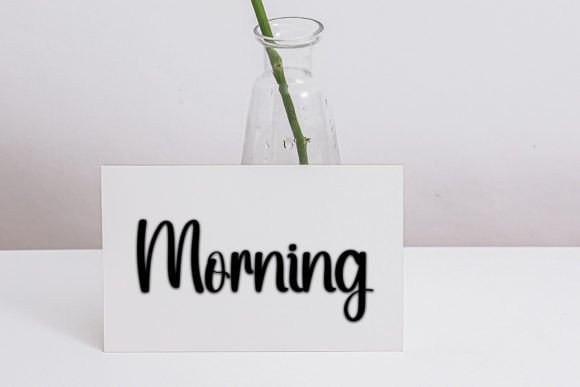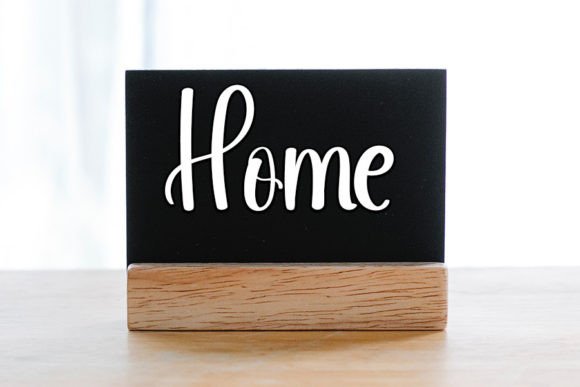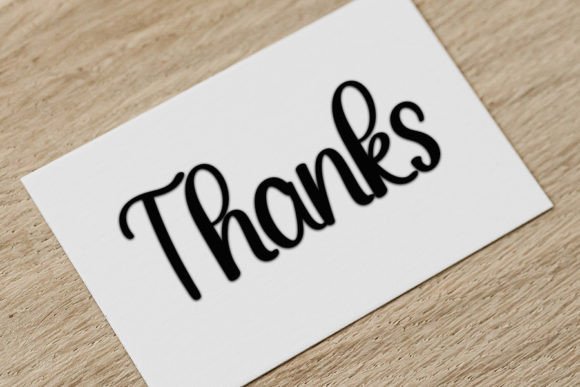
About Hello Bady Font
“Hello Baby is a neat and beautiful handwritten font distinguished by its elegant touch, making it perfect for a variety of creative projects. Its distinct and timeless style invites you to fall in love with its unique charm and use it to create spectacular designs.
The beauty of Hello Baby lies in its neat and well-crafted handwritten aesthetic. The font’s elegance is evident in its clean lines and distinctive style, offering a versatile option for a range of design applications. Whether you’re working on branding, stationery, social media posts, or other projects, Hello Baby adds a touch of sophistication to your creations.
The distinct and timeless style of Hello Baby ensures that it remains relevant and visually appealing over time. This makes it a valuable asset for projects where you want a font that stands out while maintaining a classic and enduring quality.
Consider incorporating Hello Baby into your favorite projects to infuse them with a sense of elegance and individuality. Whether used for logos, branding materials, invitations, or digital designs, Hello Baby’s distinct and timeless style allows it to shine in various creative contexts.
In summary, Hello Baby is not just a font; it’s a design asset that combines neatness, beauty, and elegance. Its distinct and timeless style makes it a versatile choice for creating spectacular designs. Fall in love with Hello Baby and let its unique charm enhance the visual appeal of your creative endeavors.”